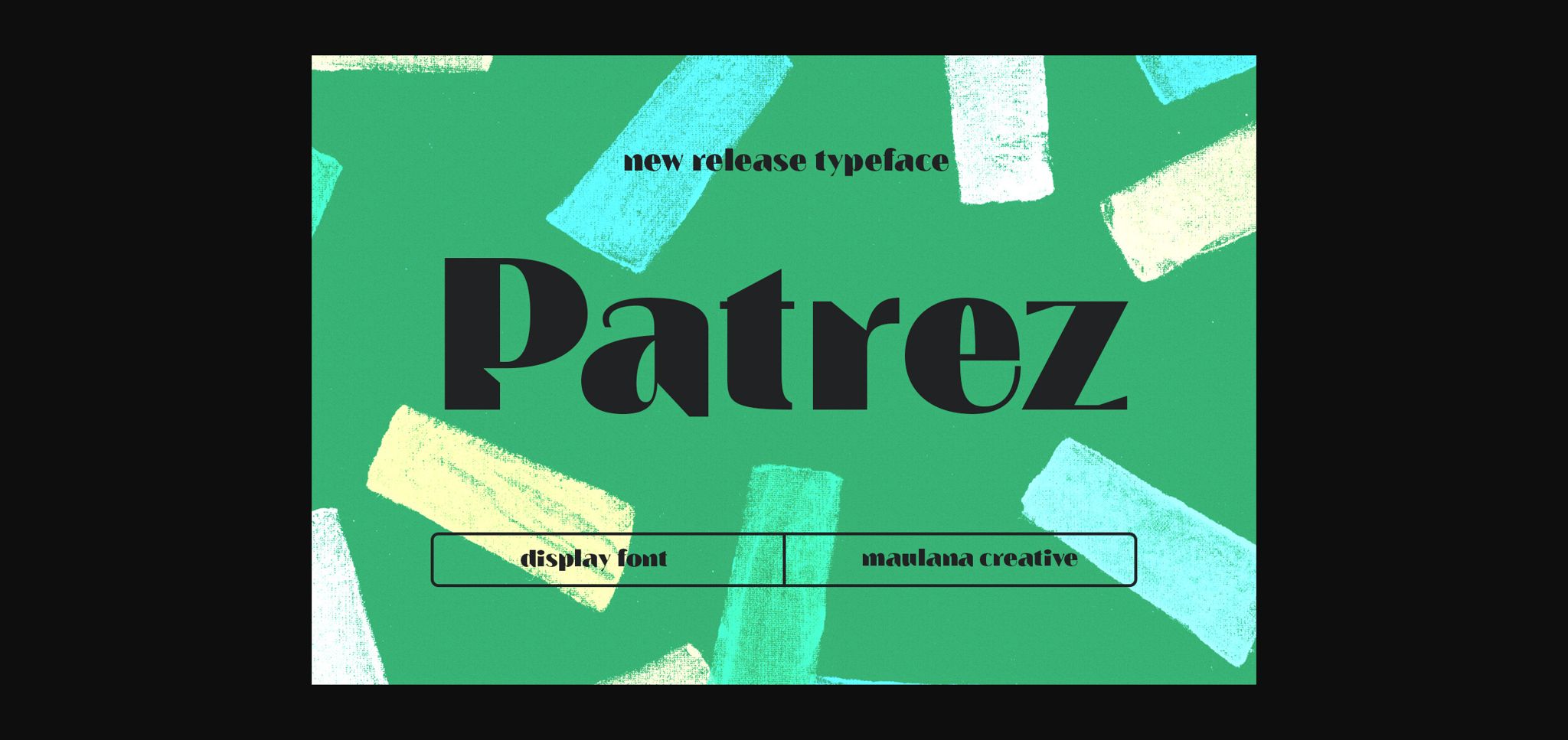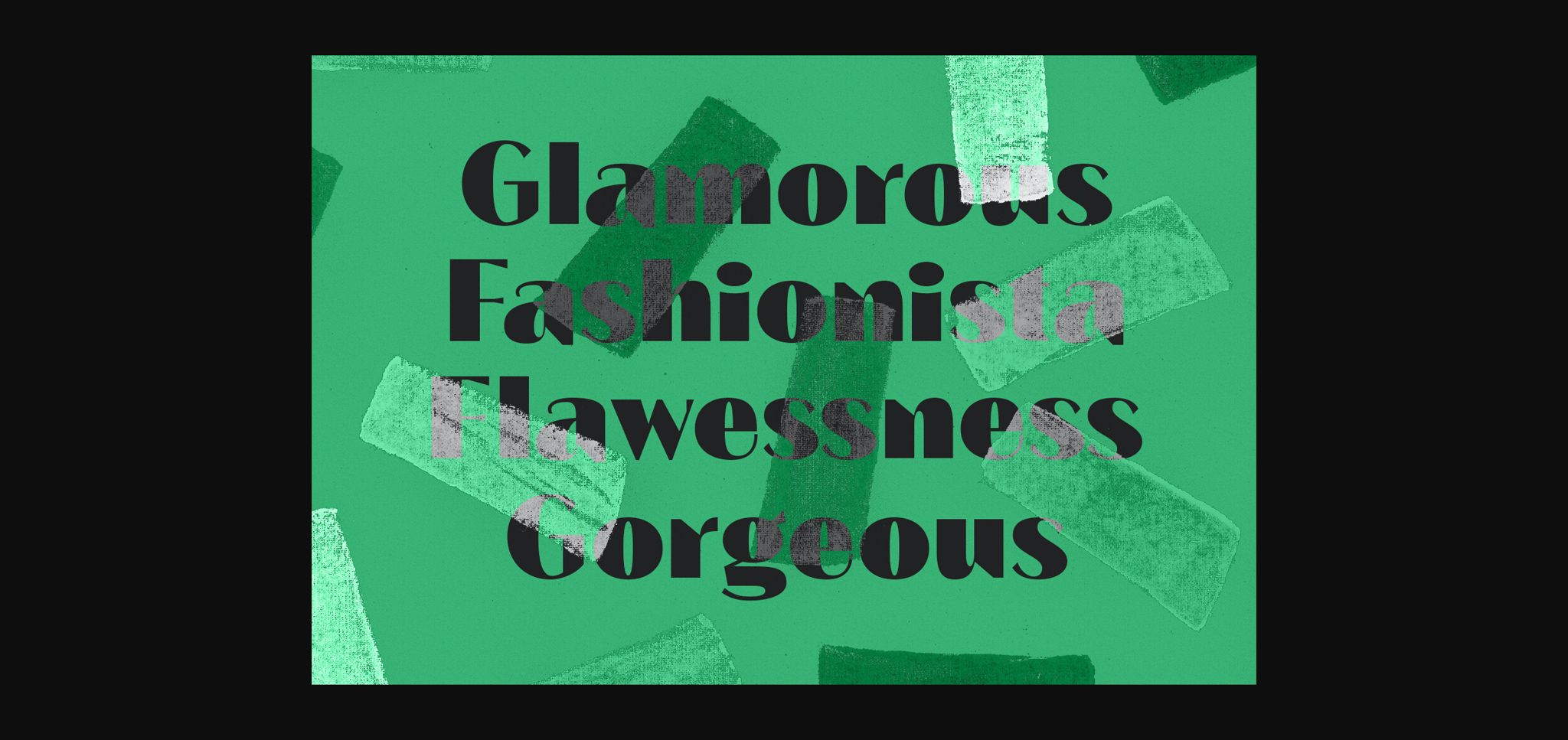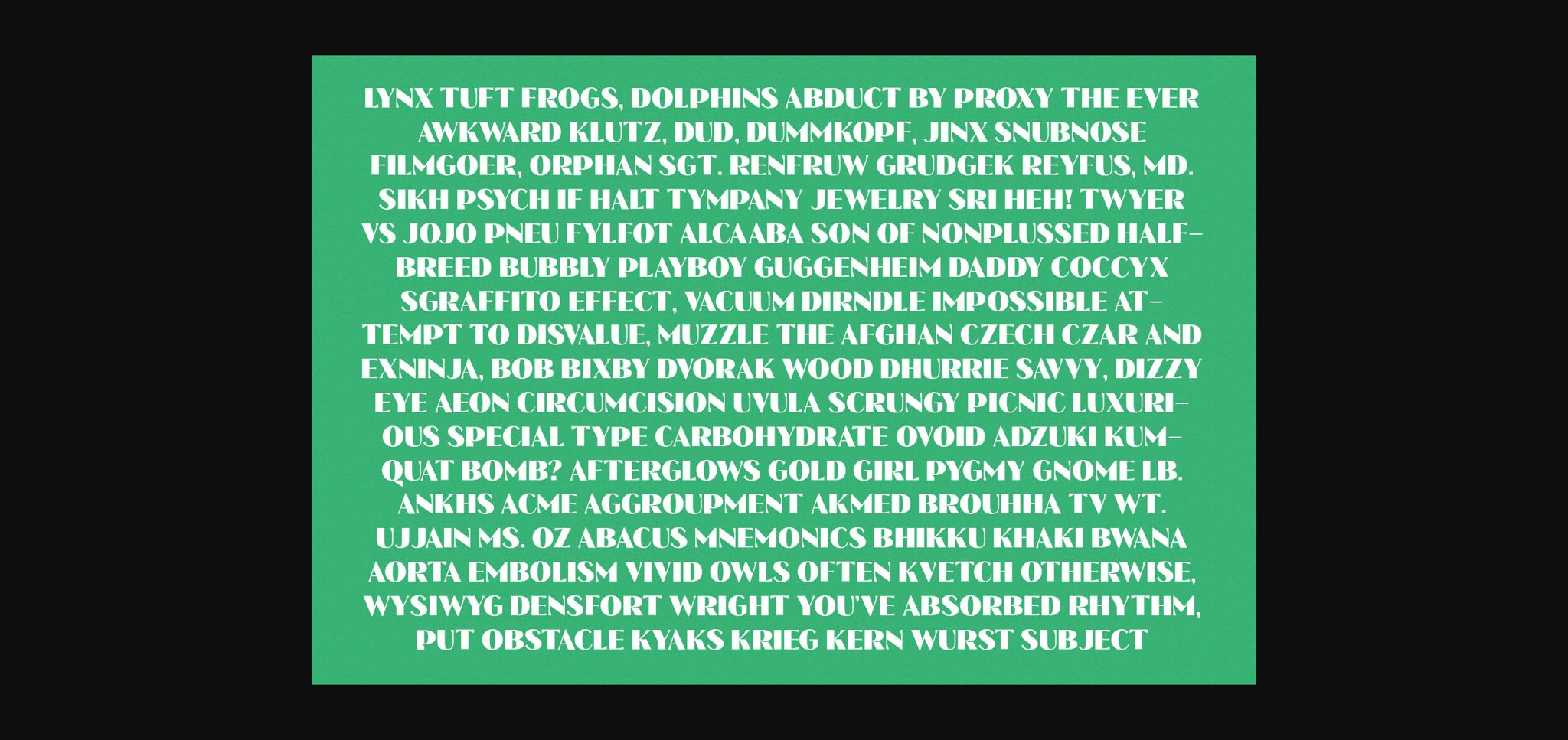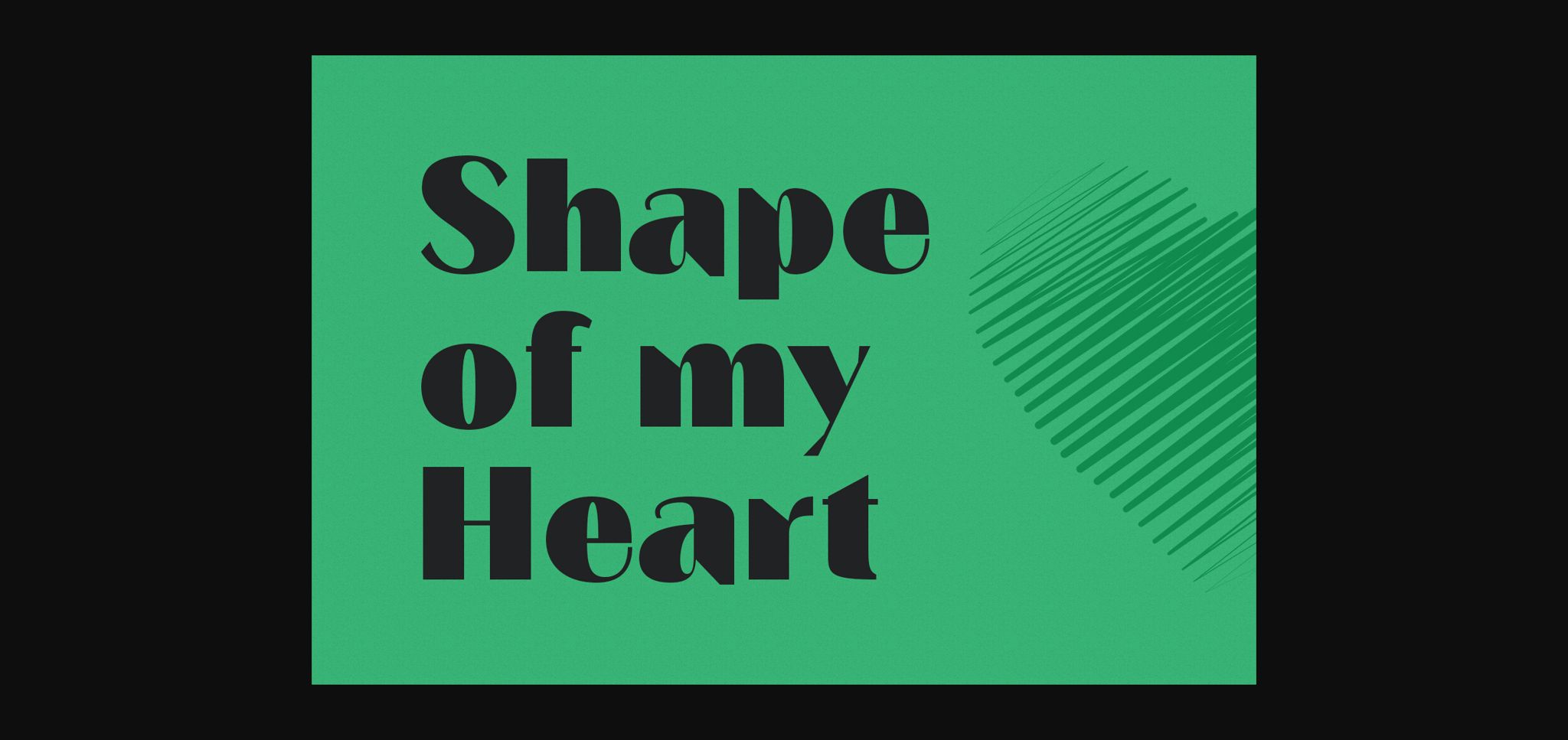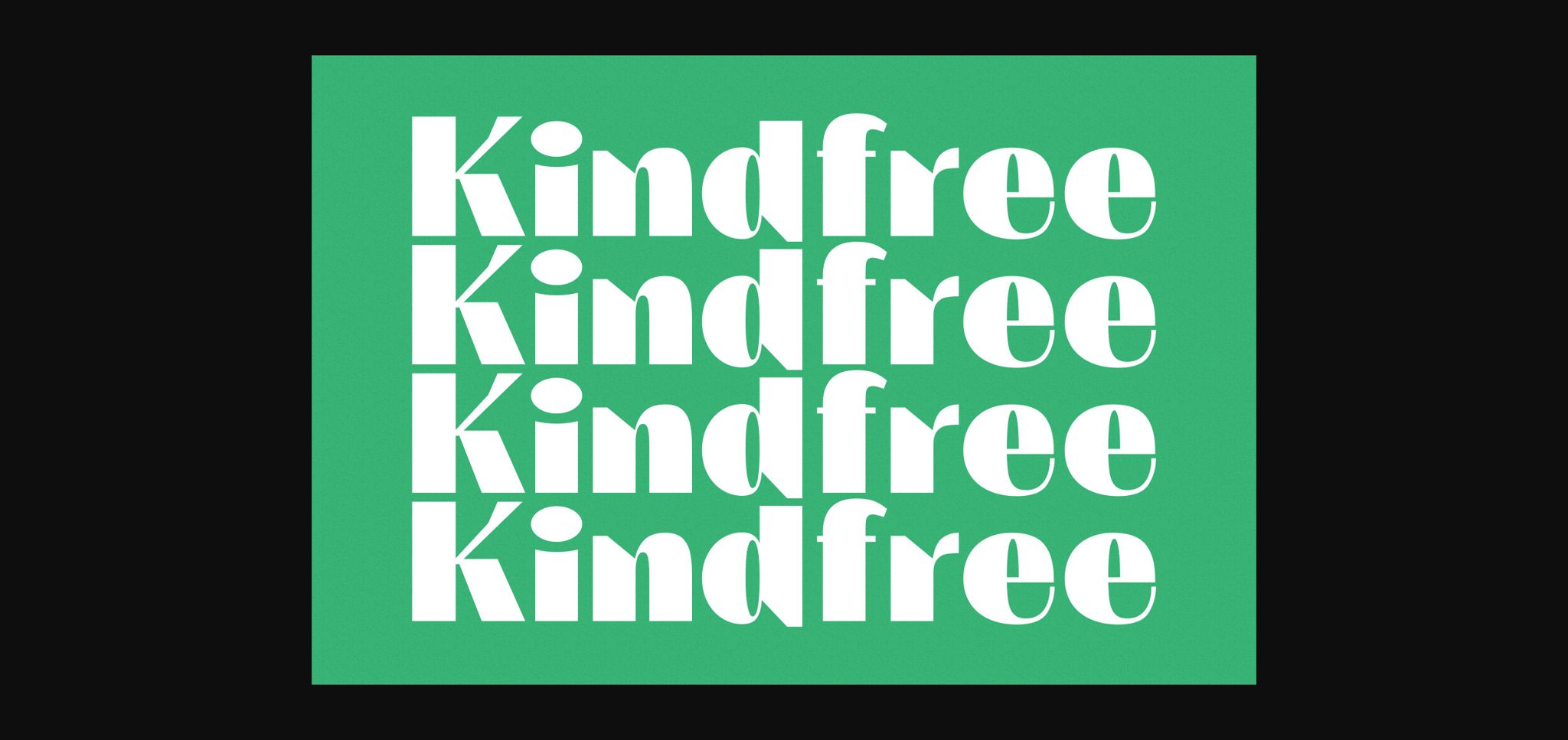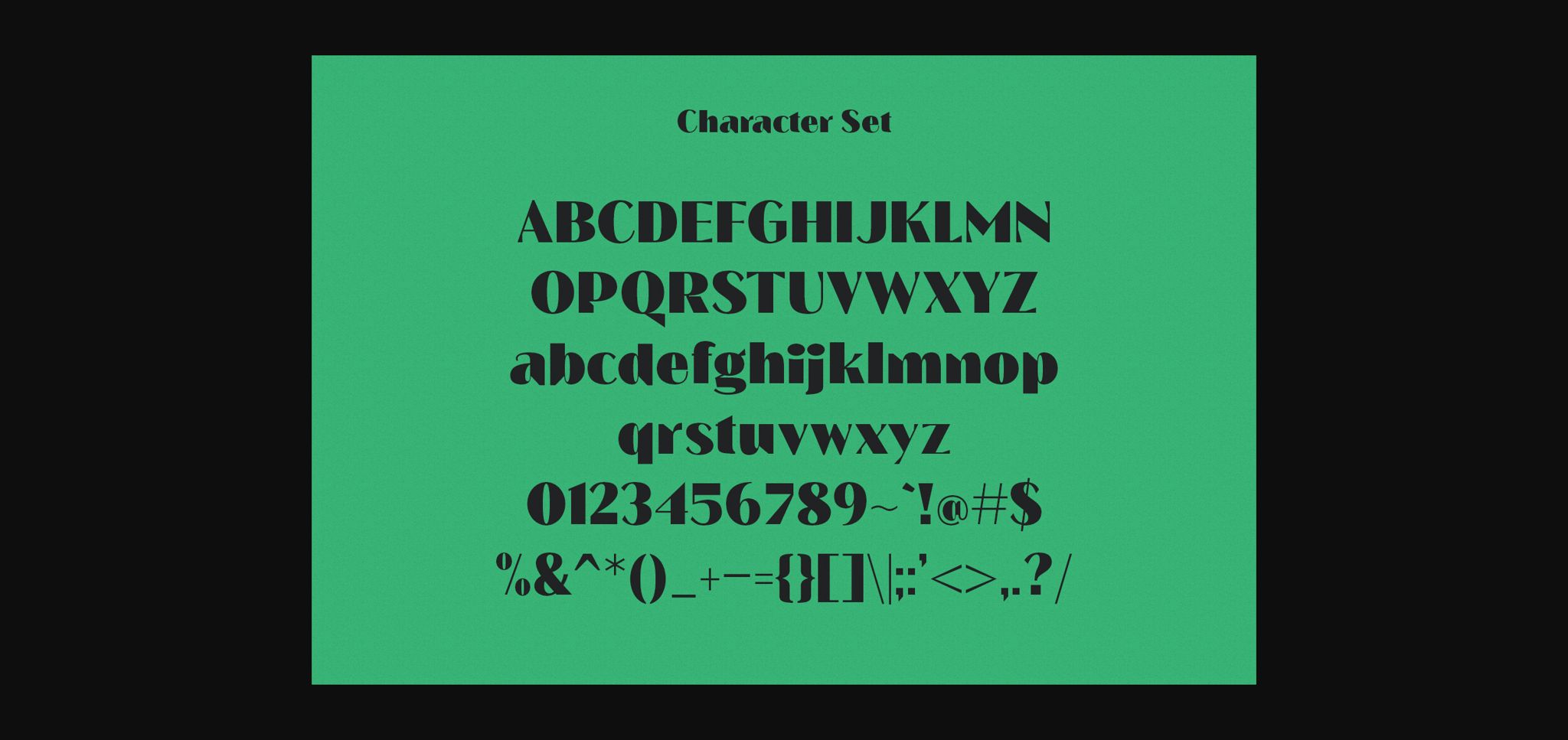
About Patrez Font
Patrez has a strong personality which makes it a perfect choice for display projects. Perfectly suited for a wide range of applications from branding and logos, to candy and food packages, Patrez is a bright and fun typeface with a unique appearance.